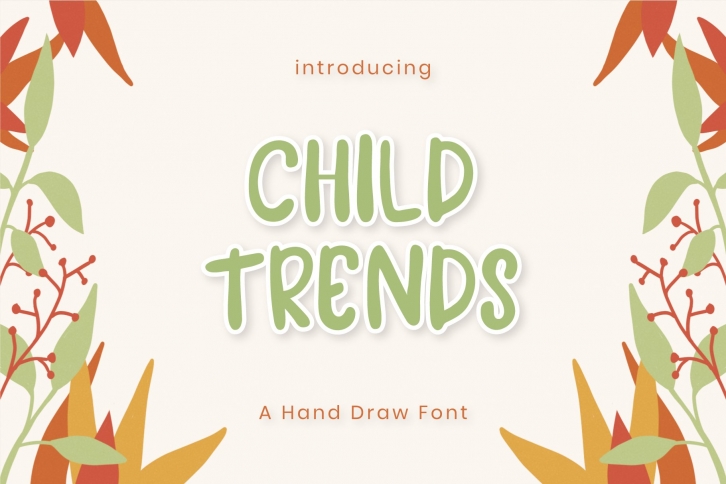
Child Trends is a trendy and unique font with an authentic style. It was designed by Balya 99 and it's a great choice for creative people who need such a font. It was released on May 25, 2020 and the file size is 5.62 MB. Child Trends will add an organic vibe to any design idea!